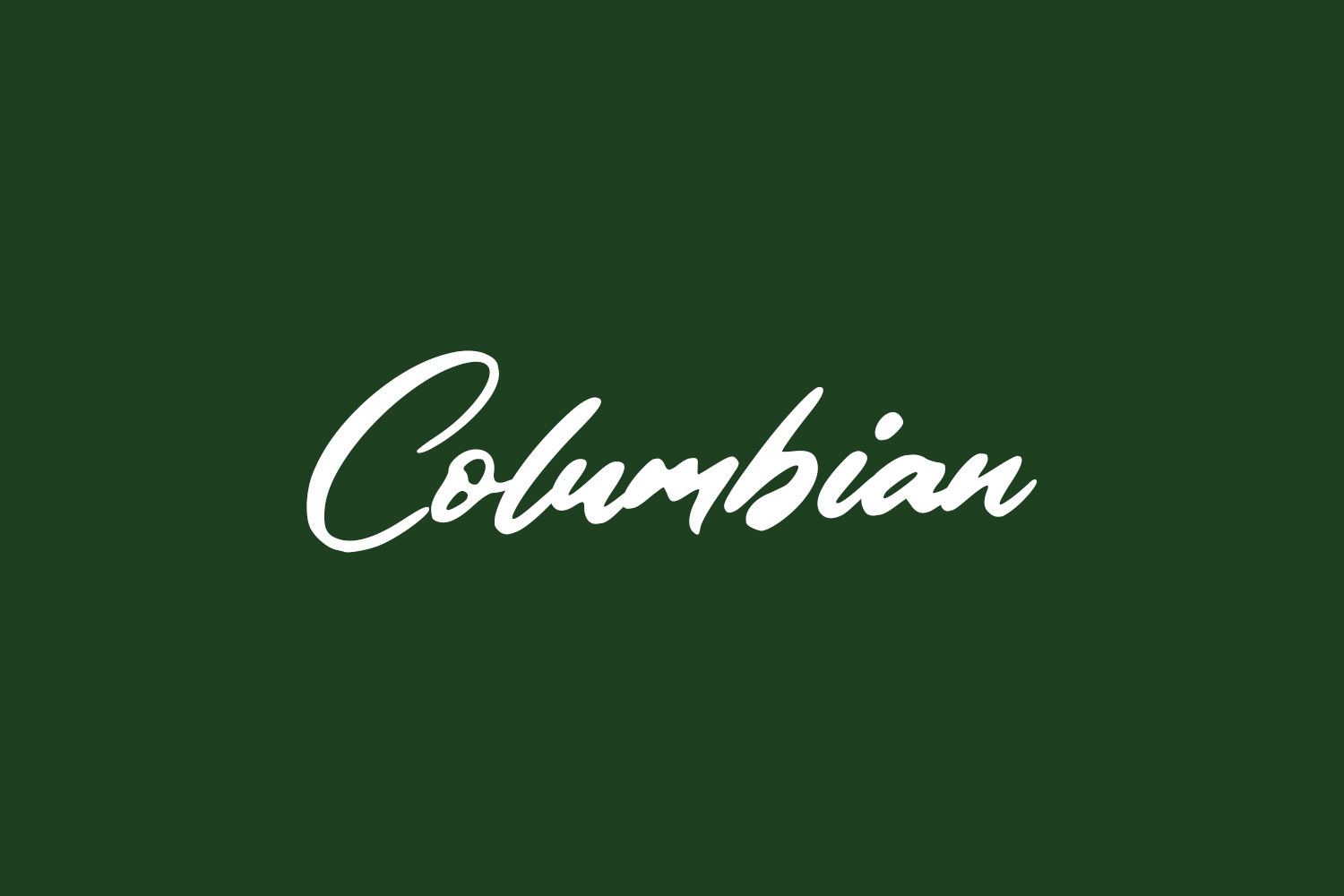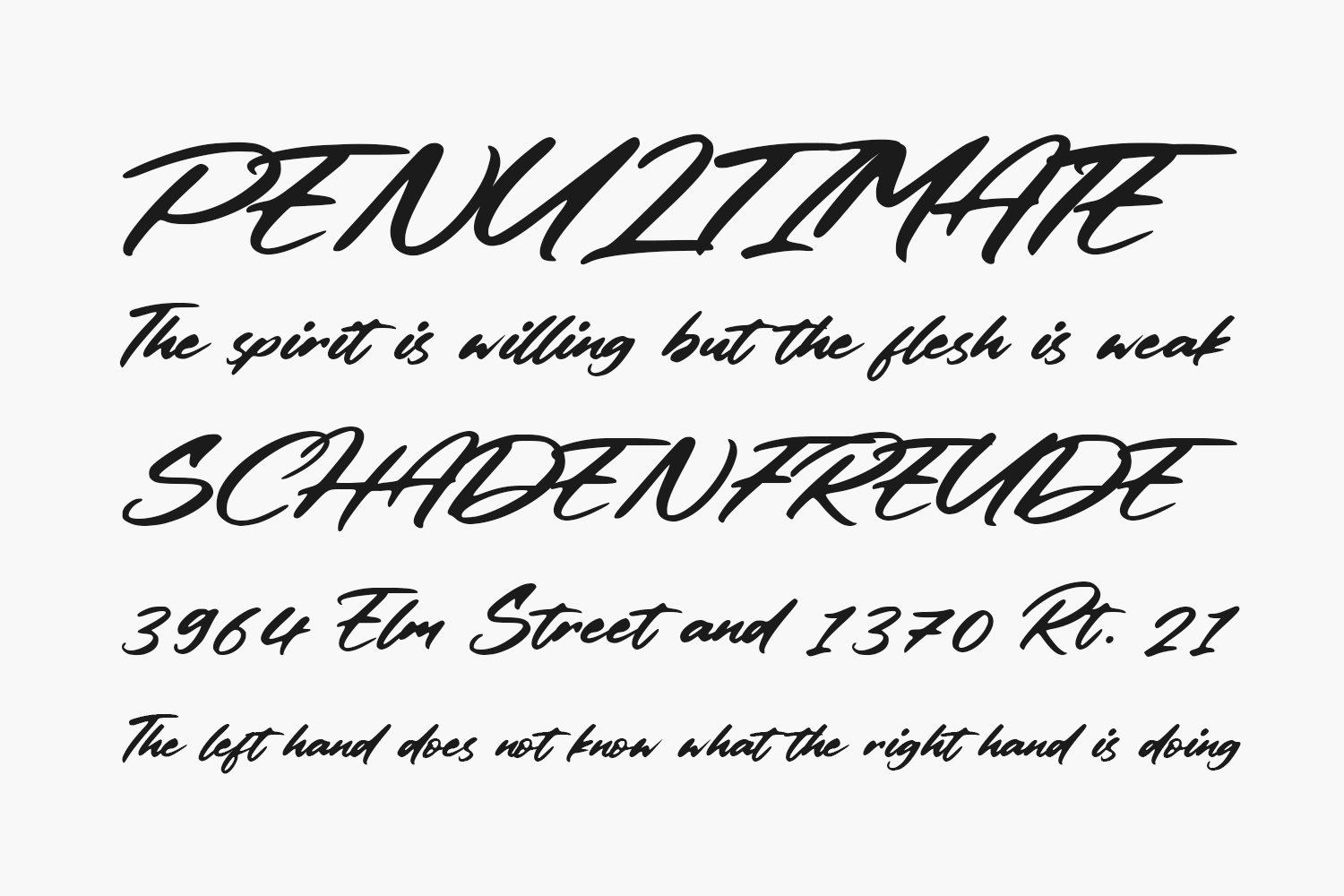
Columbian Free Font is a lovely and delicate script font that exudes elegance and class. This font was particularly crafted for those who need a beautiful and refreshing look to their designs. Columbian Free Font was designed by Balpirick Studio and is free for personal use only. Please purchase the full version for commercial use.
Designed by Balpirick Studio